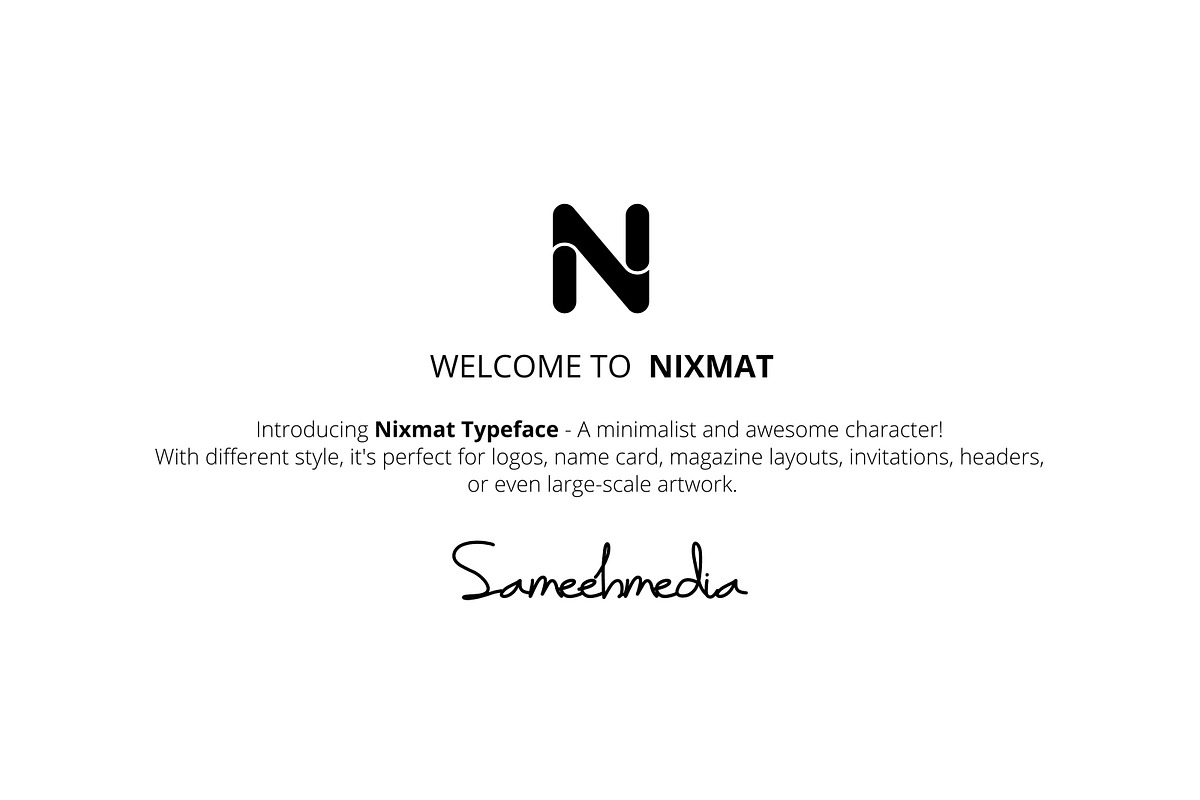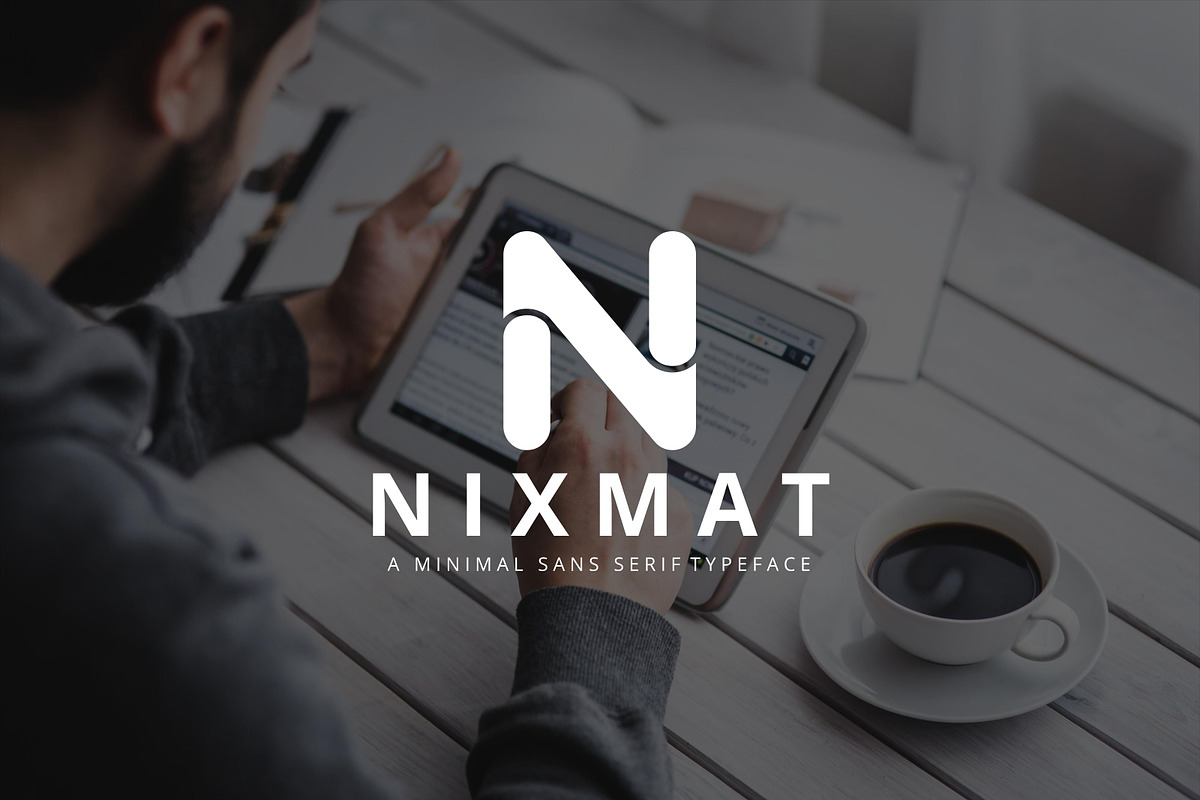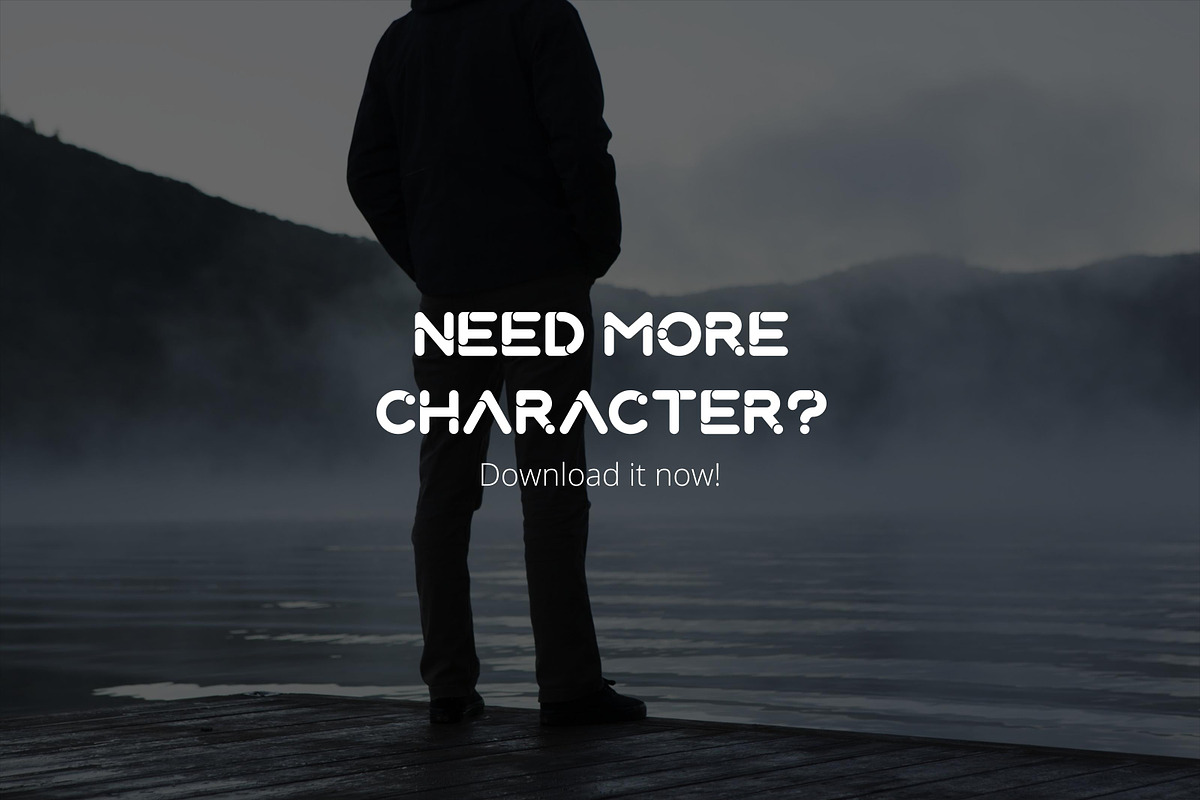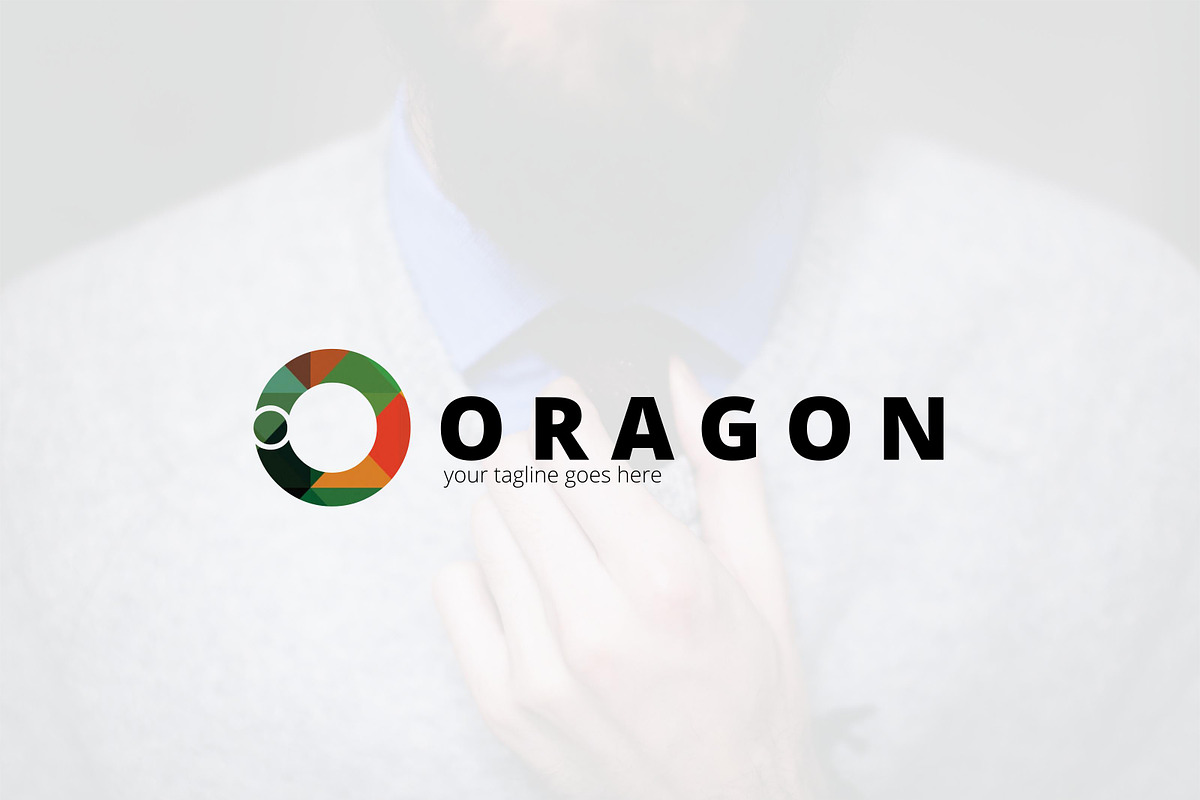
Nixmat | A Brand Identity Font
Nixmat | A Brand Identity Font by Graphicfresh is a font selected for branding, posters, packaging, typography.
Nixmat | A Brand Identity Font by Graphicfresh fits naturally into Branding, posters, packaging, typography.